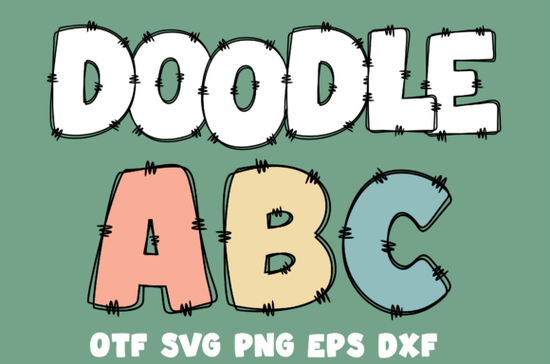
Looking for a font that adds a playful touch to your creative projects? The Doodle ABC Font is a perfect choice for anyone who wants to bring a sense of fun and whimsy to their designs. With its hand-drawn style and unique character, this font stands out in a crowd and works well across a variety of applications. Whether you're creating something for kids, designing educational materials, or working on a DIY project, Doodle ABC brings a fresh and engaging look to every letter.
This font set includes multiple file formats such as OTF, SVG, PNG, EPS, and DXF, making it easy to use with different design tools and machines like Cricut and Silhouette. Its versatility means you can use it for both digital and print projects without any issues. The bold shapes and quirky outlines make each letter feel like a small work of art, while the sketch-style stitching details add an extra layer of creativity.
If you're a designer, craftsperson, or small business owner looking for a font that’s both functional and eye-catching, Doodle ABC is worth considering. It’s especially useful for projects that require a friendly and approachable aesthetic. From coloring books to classroom materials, this font helps you express your ideas in a way that feels personal and original.
What Makes Doodle ABC Stand Out?
The Doodle ABC Font is designed with a focus on personality and charm. Unlike more traditional fonts, it doesn’t just convey text it tells a story. The hand-drawn elements give it a unique, one-of-a-kind feel that can’t be replicated by generic typefaces. This makes it ideal for projects where you want to stand out and make a lasting impression.
One of the key features of Doodle ABC is its ability to work across different platforms and mediums. Whether you’re using it for digital illustrations, print materials, or cutting projects, the font maintains its quality and visual appeal. The inclusion of multiple file types ensures that you can use it in the way that best suits your workflow.
Best Uses for Doodle ABC
There are countless ways to use the Doodle ABC Font depending on your needs. Here are a few popular applications:
- Children's Projects: Its playful style is perfect for coloring books, activity sheets, and educational materials.
- DIY Labels and Stickers: Add a custom touch to your handmade items with this fun and expressive font.
- Print-on-Demand Products: Use it to create unique designs for t-shirts, mugs, and other customizable items.
- Classroom Materials: Make learning more engaging with visually appealing worksheets and flashcards.
How to Get the Most Out of Doodle ABC
To make the most of this font, consider experimenting with different color schemes and layouts. Its bold and expressive style works well with bright, vibrant colors, but it can also look great in more subdued tones for a softer effect. Pairing it with other decorative fonts can also help you create a cohesive and visually interesting design.
If you're new to using decorative fonts, take some time to explore how Doodle ABC behaves in different contexts. Testing it on various projects will help you understand its strengths and limitations. You might also find that combining it with other fonts from the same category, like Black Cute Cat Font or Shark Bite Font, can lead to exciting creative results.
For more options in the decorative fonts category, you can explore other popular choices such as Baseball Alphabet Font or Outlined Dashed Tracing Font. Each of these fonts has its own unique style and application, so you can mix and match based on your project needs.
If you want to see what Doodle ABC looks like in action, you can check out examples online. Many designers share their work on platforms like Creative Fabrica, where you can find inspiration and see how others have used the font in their designs. You can also visit the official page for Doodle ABC Font to learn more about its features and usage.
Whether you're a seasoned designer or just starting out, Doodle ABC is a valuable addition to your font collection. Its combination of style, versatility, and ease of use makes it a go-to choice for a wide range of creative projects.